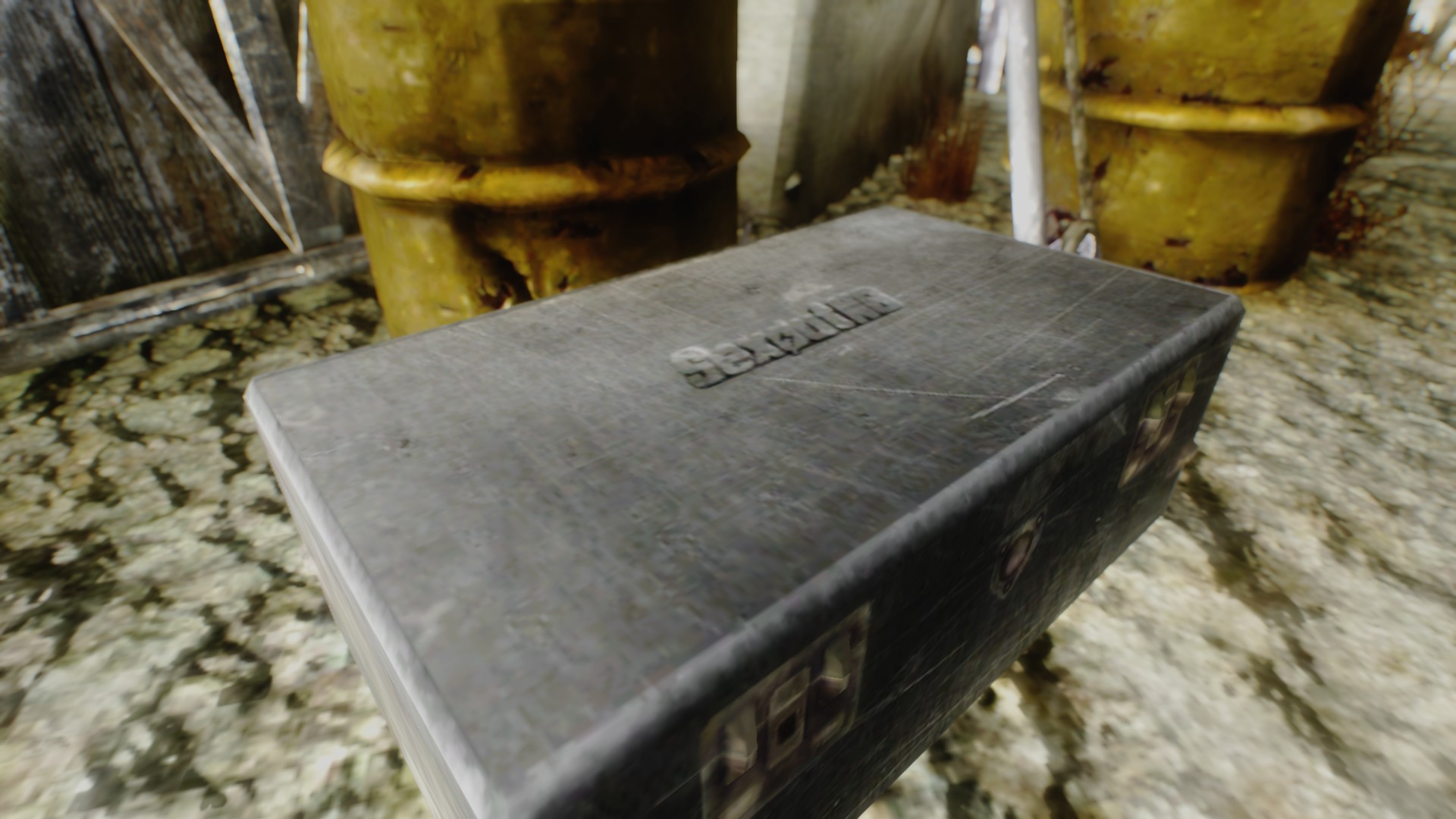
ChancellorKremlin Posted April 29, 2013 OK, so I'm in the process of doing somewhat of a revamp/re-write of many of Sexout's installation instructions, FAQ's, and so forth, and a conversation I recently had with Bruce Wayne got me thinking. We discussed how sort of "sterile" a lot of the information regarding Sexout actually is, in the sense of it lacking any visual "pizzazz" of any kind, like a logo, or screenshots (dedicated to the relevant threads) or even a short trailer of the type DoctaSax made for his "FleshedOut" plugin, which I thought was a really nice addition. So, with that in mind, I decided to start work on drafting a few new threads, guides, and other miscellaneous, which include a few screenies and maybe a trailer too. The only thing I don't possess the skills to do, and would like to recruit your help to do so, is for an actual logo for Sexout. I originally had in mind Commander Tak's style and font, which closely resembles the Fallout New Vegas design, for Interior Lighting Overhaul, which I think looks pretty neat and would make a good visual impression: So basically I'd like to recruit the help of someone with the skills (and the interest and willingness, obviously) to make something similar or along those lines for Sexout. I know we have a great deal of talented people here on LL with a variety of skills, so if yours happens to be visual design or graphical overlays of the type above and this is something you'd be interested in lending a hand in, please leave a comment here or drop me a PM. Any and all help will be greatly appreciated. CK
zippy57 Posted April 29, 2013 But... but... It's so simplistic yet... wait... déjà vu all over again!
Dazmaz Posted April 29, 2013 I would like to try. What Text ? Just the word Sexout or what else ?
ChancellorKremlin Posted April 29, 2013 Author Posted April 29, 2013 I would like to try. What Text ? Just the word Sexout or what else ? Sexout NG would be perfect, though if you nail a common theme that you can reapply in the future, we could eventually use the same font/style for things like FAQ, Installation Instructions, or any other thread title. Thanks for taking an interest. I'll be pinning this for a month to give people the opportunity to contribute. If more than one submission is made, we'll put it to a poll and decide which one to take. Thanks again.
ChancellorKremlin Posted April 29, 2013 Author Posted April 29, 2013 Spectrum Warrior, I like your "sketch" - it is bey good, and I say "sketch" because if that's just a sketch I can't wait for the finished product. As I've said elsewhere, don't worry too much about the neon and the parallelogram in the background, I'm more attracted to the metal finish and the sort of industrial style to the letters and the text than anything else. Thanks again.
Spectrum Warrior Posted May 2, 2013 don't worry too much about the neon and the parallelogram in the background ok. variant 1 (nothing special) variant 2 variant 2a little bonus
BruceWayne Posted May 2, 2013 don't worry too much about the neon and the parallelogram in the background ok. variant 1 (nothing special) variant 2 variant 2a little bonus Very nice! I think var 2 would be my personal favorite.
ChancellorKremlin Posted May 2, 2013 Author Posted May 2, 2013 Indeed. I'm between Var 1 and 2 myself. I really like the WIP "bonus" because I think it'll come in very handy. Thanks again Spectrum Warrior!
BruceWayne Posted July 5, 2013 Simplistic sign for Sexout store , just metal letters and red frame . grab screenshot http://speedy.sh/sZ74S/Sexout-Store-Sign.rar (You can change textures to be more in FNV style , if you want) Are those meshes or did you do that with an elaborate normal map? If those are meshes, you might want to check your normals again around the s, x and the o, they seem to be facing in the wrong direction and causing those dark blobs. Or I could be mistaken and it's just the way the light works in those pictures. Anyway, keep up the nice work.
NepoznatiNN Posted July 5, 2013 Combination of things you said . Used letters and extruded them in a way that they are like shells (empty inside , didn't wanted too much triangles so i did not made them as full objects) and smooth-ed them as editable poly-s , that way they are more rounded , but less uniform . There is little influence from texture (although i did not normalized it too deep) and from light . I sort of like it that way , they look like something that would people from NV world be able to make . What i would change is make white surface little dirtier with texture , maybe little cracks in red frame so it is less perfect looking and more real for NV world . This is 1st world object i made successfully , and i am not sure would be i able to repeat . Most problems made girls - they are from Gommorah and when i removed them from building and downzized them they somehow remembered texture from building and when i tried to apply rusty metal pictures as texture they made texture repeat and multiply like brick wall . This is reason they are now separate object , but i (after so much trying with pictures) this time used simple colors as texture . Still need to learn much about world objects . You can see one that i tried on http://www.loverslab.com/topic/17716-need-help-with-textures-nifskope-game/page-2 . It is still not finished . Still need to learn how to make Collision Meshes . Cheers
BruceWayne Posted July 5, 2013 Lol, I might be new to this, but I know that meshes are hollow shells and not solid. As for the textures, you most likely need to unwrap the girls again. I'm not sure how this works in 3dmax, but in Blender you just select them in edit-mode and hit unwrap. You can place seams pretty easy with Alt-right clicking on edge loops, where the seams would go and press CTRL+E->mark seam for better results. If you're happy with the seams just select all and unwrap again.
NepoznatiNN Posted July 5, 2013 When you make them from simple forms like box or cylinder they try to act like full objects . In my case here they are even more hollow (missing one page) for example letter o looks like kuglof mold . With girls i made mistake and merged them with rest before unwrapping UVW and that applied their material to rest (should be oposite) .